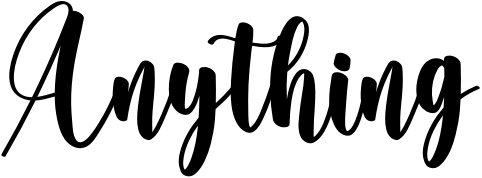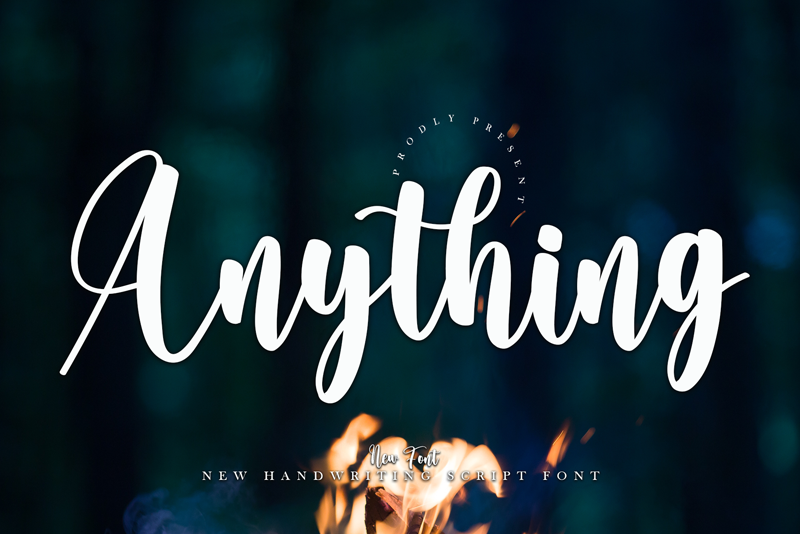
Anything
This font retains a classy calligraphic influence while feeling contemporary and fresh. This versatility will attract a wide range of creative ideas, from letterheads and titles to stationery.